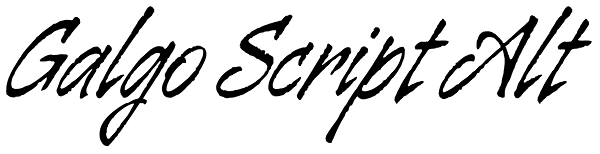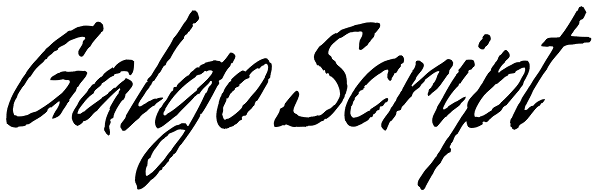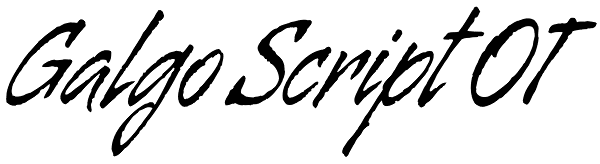
Galgo Script
The Galgo is a Spanish Greyhound, an ancient hybrid breed of dog. Just like the Galgo, the letters of this font are a mix of elegant brush calligraphy and the rough, weathered strokes of speedy scrawl. Galgo Script is quite suitable for logomarks...
Galgo Script Alt
Galgo Script
Galgo Script OT